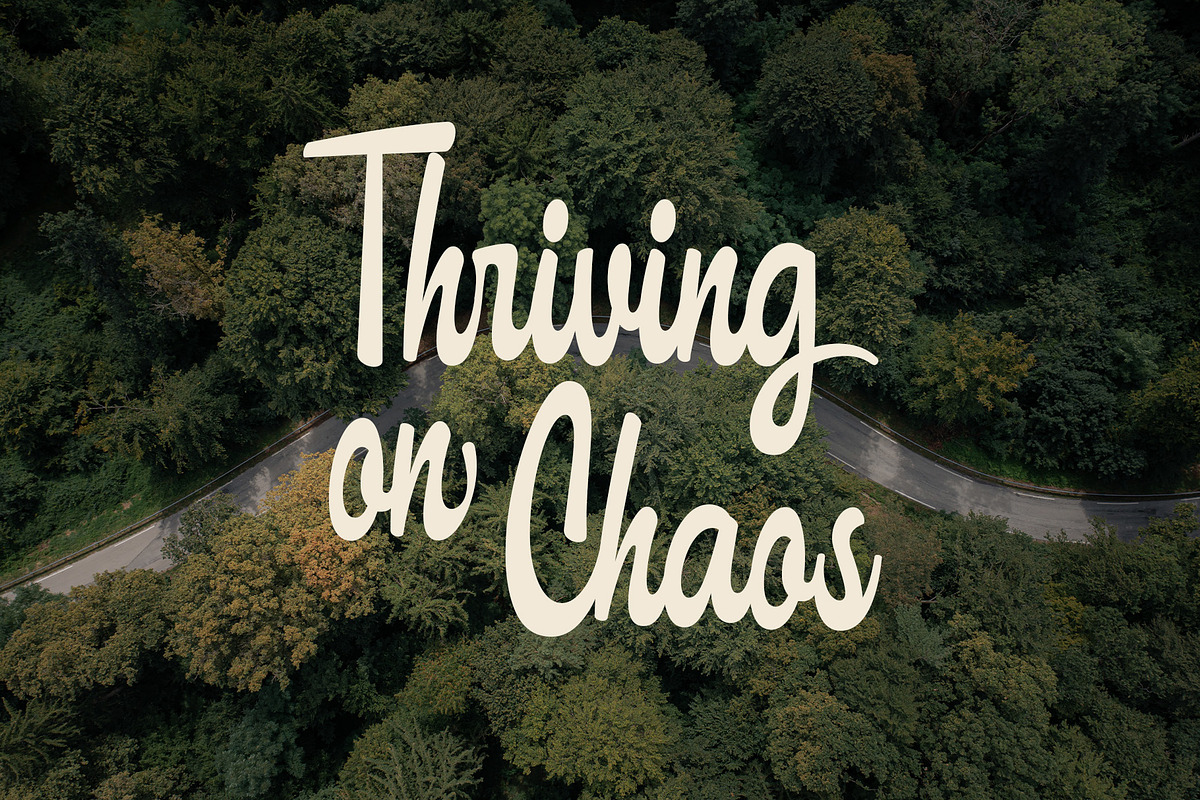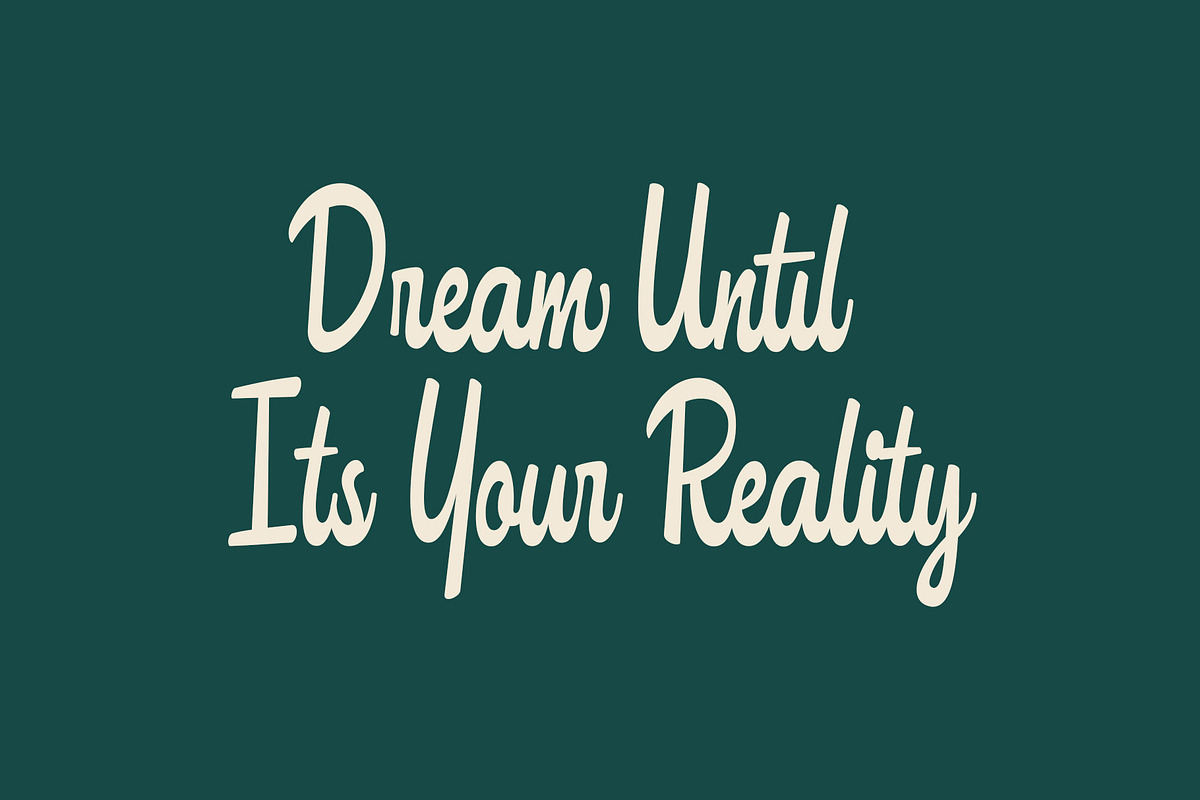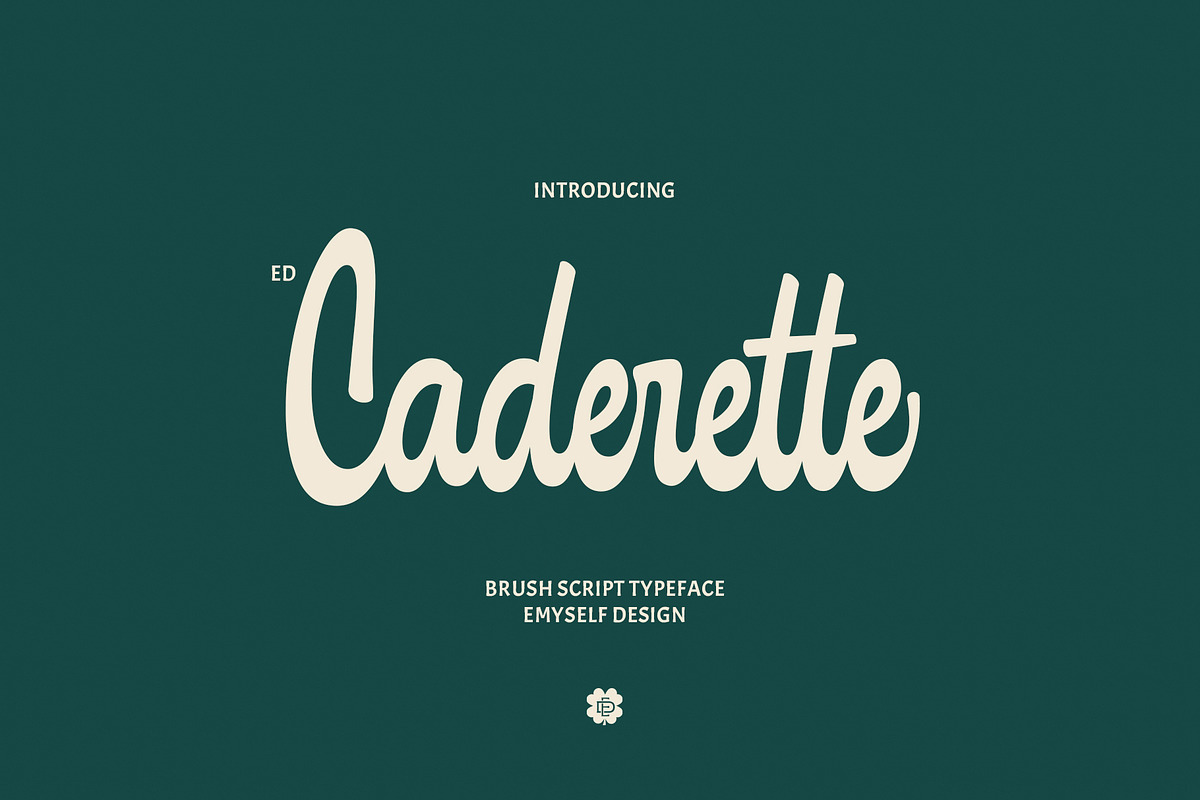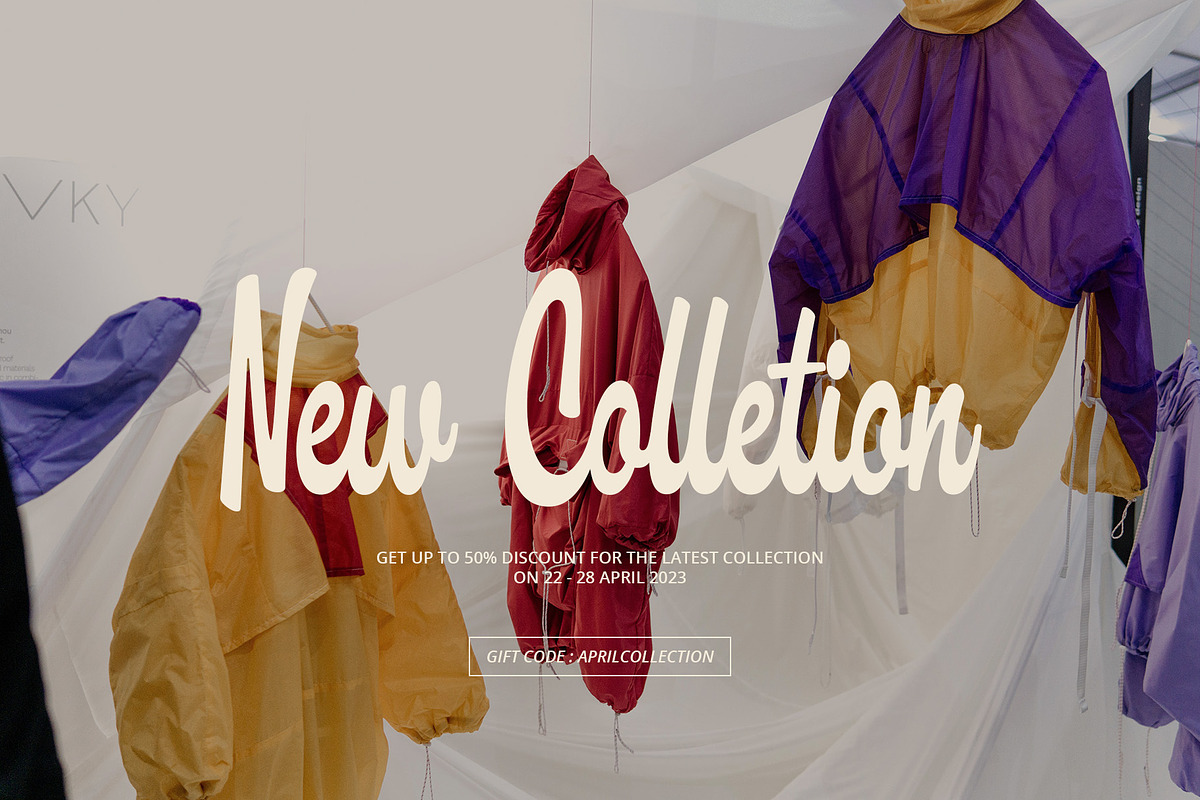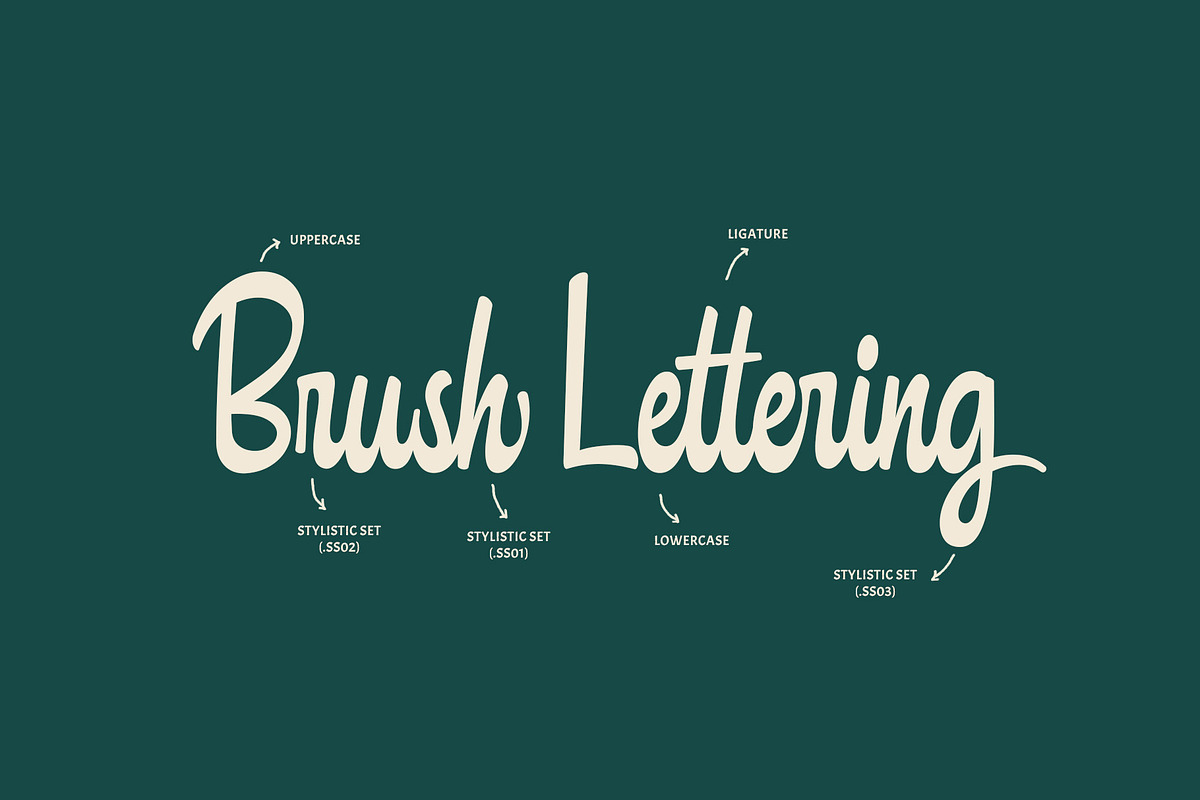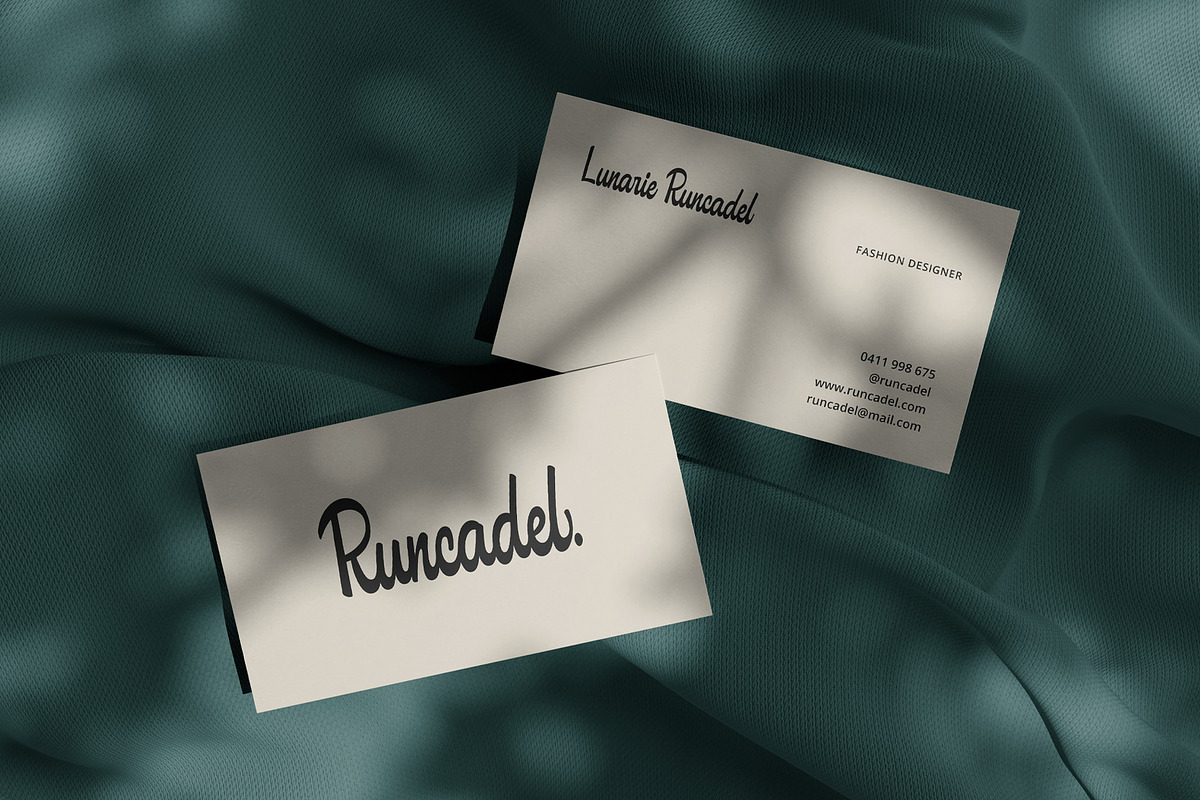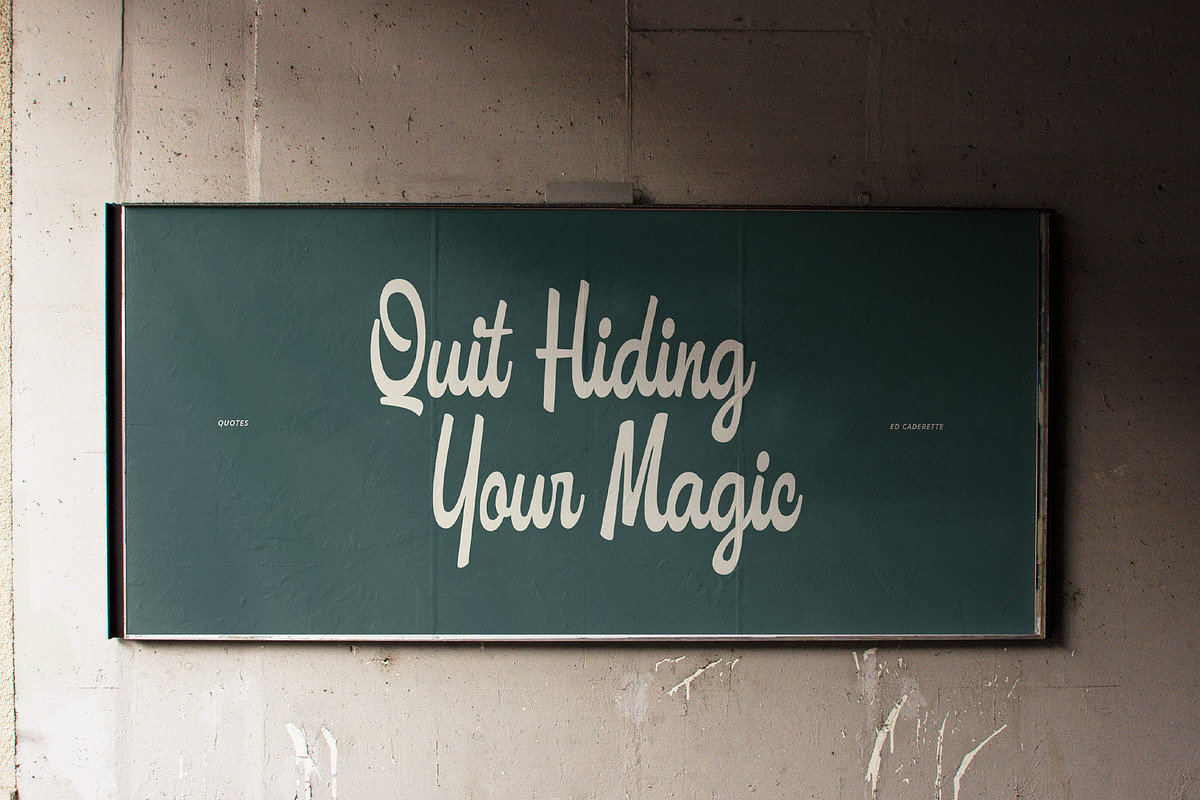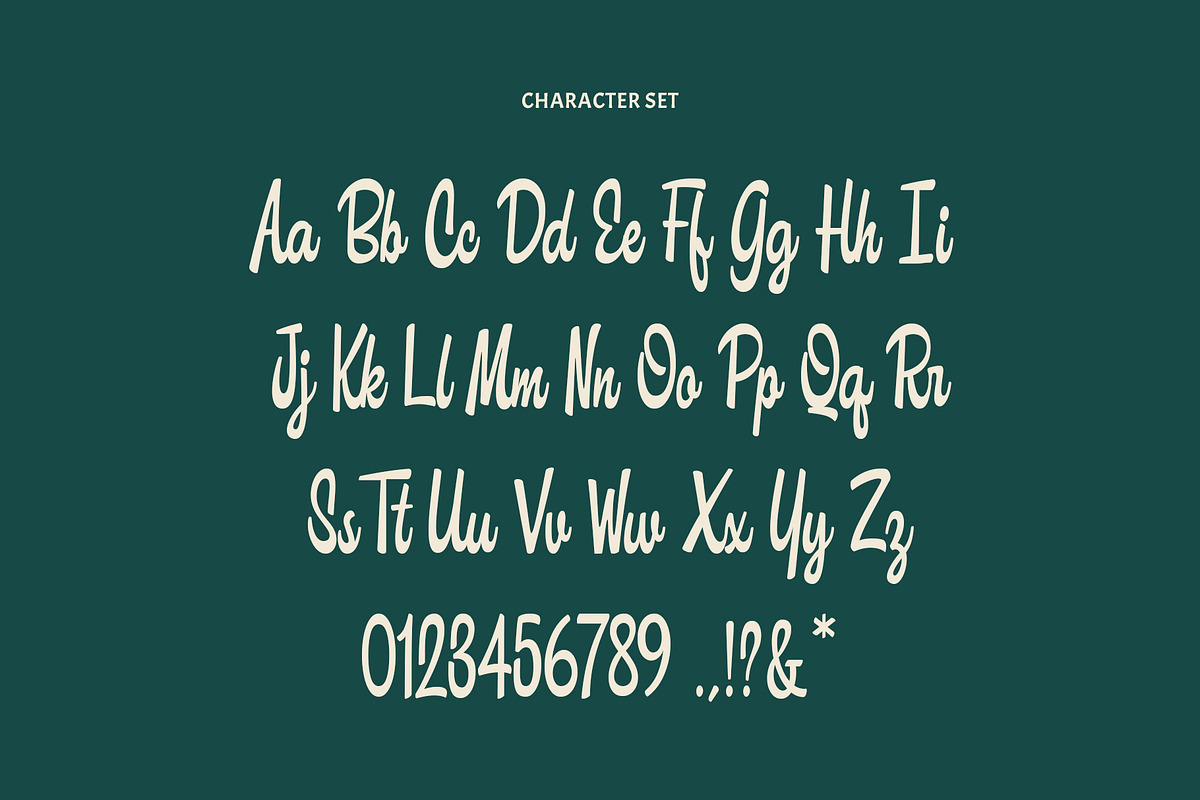
ED Caderette
ED Caderette is a classic casual script font with a marker-like appearance. This font is supported by ligature, stylistic set, and multilingual which complement this font for your work.
This font is perfect for creative projects such as Logotypes, printed quotes, invitations, cards, product packaging, headers, Letterhead, Apparel, Web design, Magazine, Book, etc.
- Punctuation and Marks
- stylistic set & Ligatures